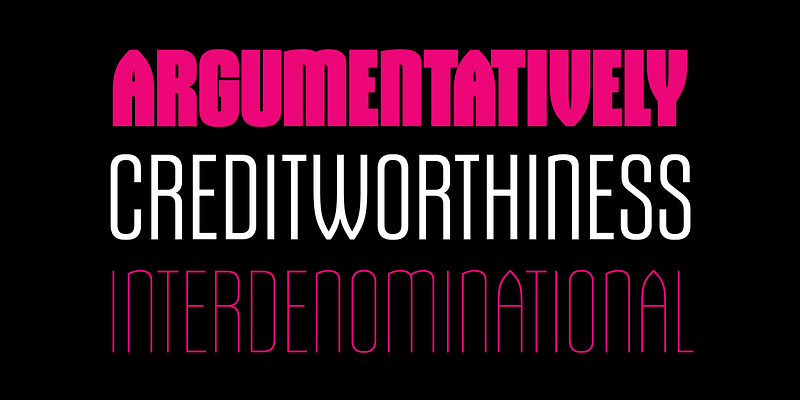
Gothiks Font Free Download
Gothiks Font Free Download is a bold, modern sans-serif typeface with strong, clean lines and a sleek design. Its geometric shapes and minimalistic style make it perfect for contemporary branding, posters, logos, and headlines that demand attention and clarity.
Gothiks Font is highly versatile and works well for both large display text and smaller body text, ensuring legibility across various media. It integrates seamlessly with design tools like Adobe Illustrator, Photoshop, Figma, and Canva, offering flexibility for both print and digital designs.